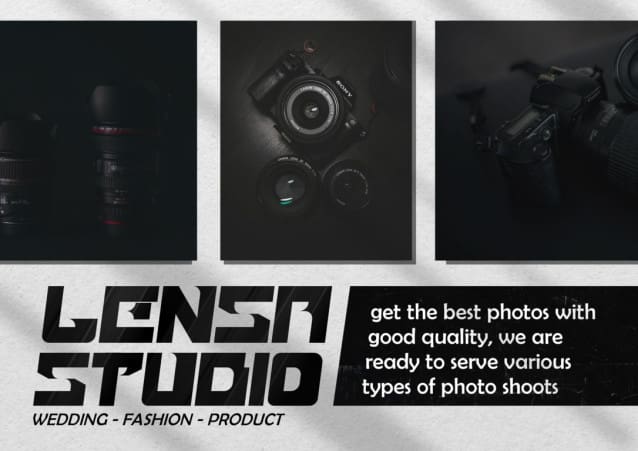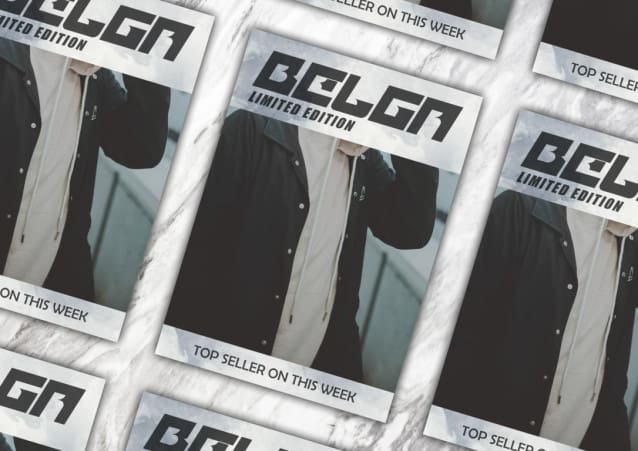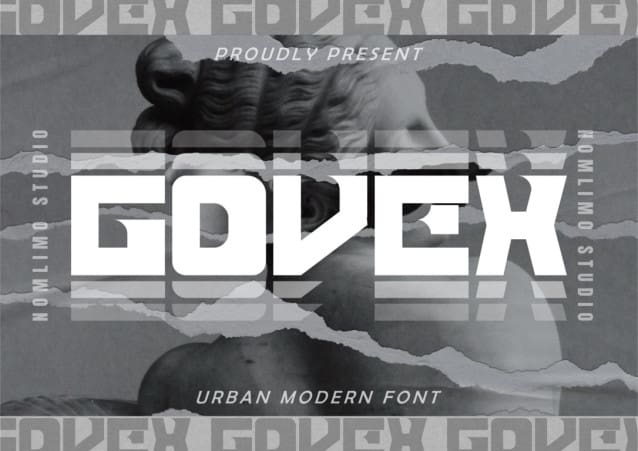
Govex Font
Govex Font, a bold and modern typeface that effortlessly merges contemporary and vintage aesthetics, creating a captivating and elegant appeal. This sans serif font exudes style, sophistication, and timeless charm, making it a versatile choice for a variety of projects. Whether you’re working on branding, logo design, wedding invitations, social media posts, advertisements, product packaging, labels, photography, watermarks, or stationery, Govex Font is the perfect companion.